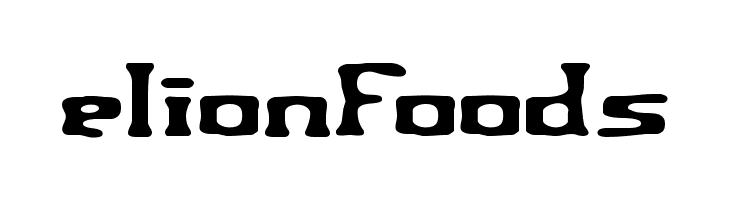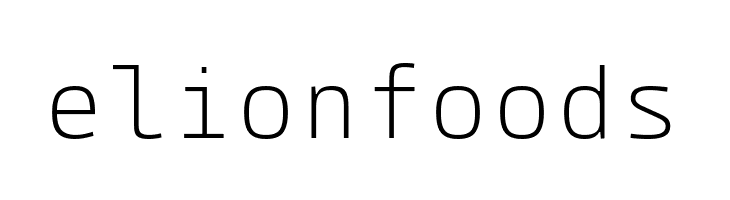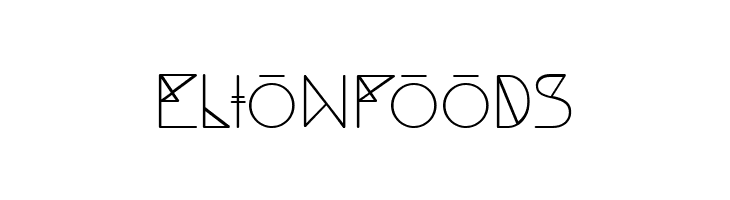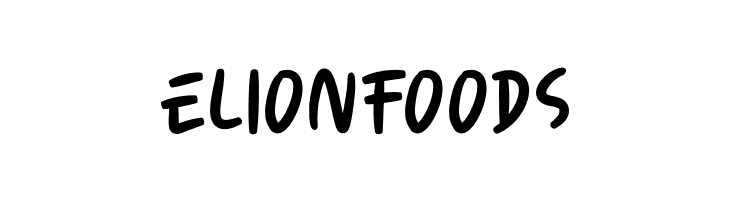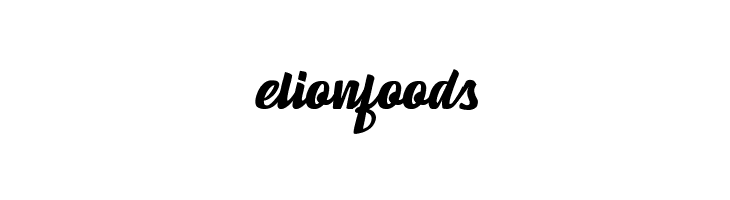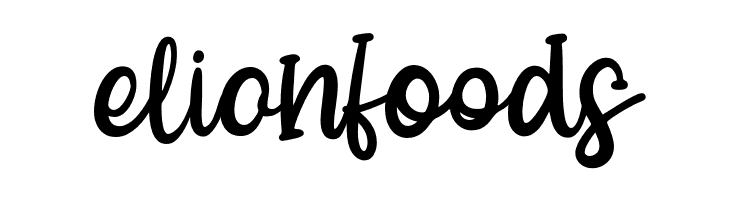
A clean, modern monospaced font with uniform character widths and low contrast.
A geometric and modern font with sharp angles and clean lines.
A playful, handwritten font with tall, narrow letters and rounded edges.
A modern, artistic font with tall, slender letterforms and subtle curves.
A playful, bold handwritten font with rounded strokes and a casual style.
A playful, bold handwritten font with rounded letterforms and a casual style.
A bold, flowing script font with expressive strokes and elegant flourishes.
A playful, hand-drawn script font with flowing, connected letters.
A playful, bold, and rounded font with a hand-drawn, comic-like style.